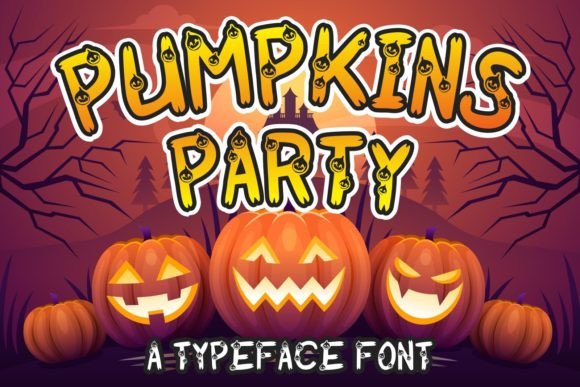
Prepare yourself for the ultimate Halloween extravaganza with Pumpkins Party Font, the spine-tingling typeface that will cast a spell on your designs. Step into a realm of mystery and enchantment, where every stroke conjures up the haunting spirit of the season.
Pumpkins Party Font is not just a font; it's a portal to a realm of endless creative possibilities. This Halloween-inspired display font will transform your projects into captivating masterpieces, leaving an unforgettable impression on all who lay their eyes upon them.
Crafted with precision and an artistic flair, Pumpkins Party Font exudes sophistication and style. Its elegant curves and sharp angles dance together in perfect harmony, creating a visual feast that will entice and delight. Whether you're designing invitations for a haunting Halloween party or creating eye-catching social media posts, Pumpkins Party Font will elevate your creations to new heights of spooky sophistication.
Immerse yourself in the captivating world of Pumpkins Party Font and unleash your imagination. Let its charming curves and haunting angles guide you as you craft designs that will send shivers down the spines of your audience. Embrace the magic of Halloween and let Pumpkins Party Font cast its spell on your creative endeavors.
Prepare to be the talk of the town with Pumpkins Party Font, the ultimate typeface for those who dare to embrace the spooky and the sublime. Let your designs dance with the spirits and leave an everlasting impression that will haunt your audience long after Halloween has passed.